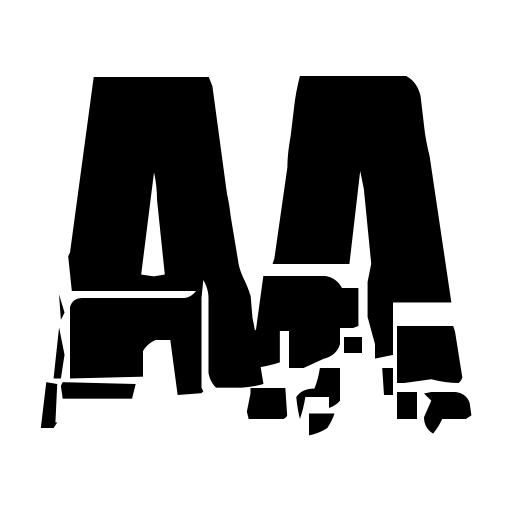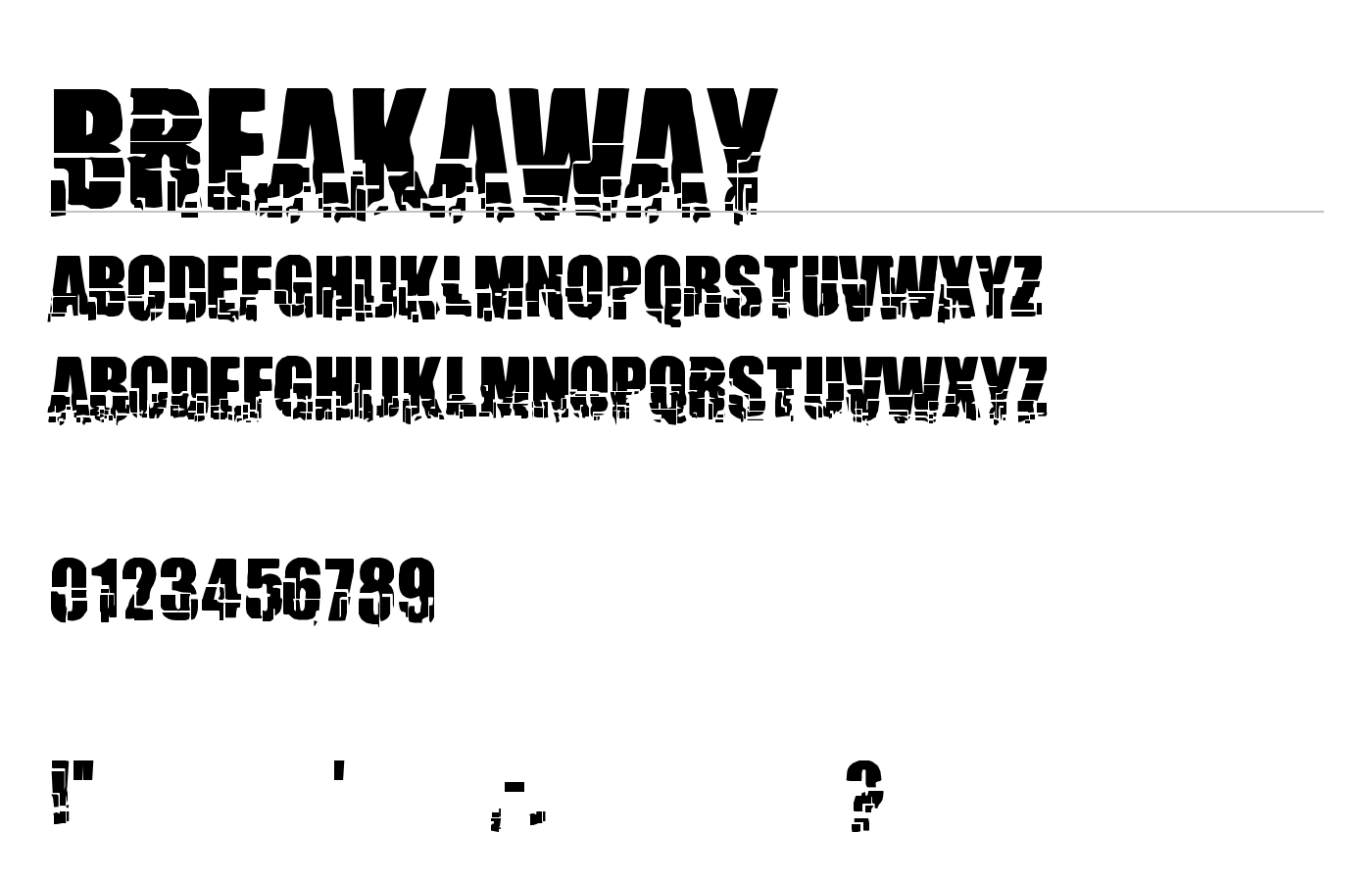
Breakaway Font is a bold, condensed sans serif with a striking glitch effect that makes the lower portions of the letters appear shattered or fragmented. Its heavy weight and strong presence convey a modern, edgy vibe perfect for headlines, posters, and branding that seeks a rebellious, tech-inspired aesthetic. Ideal for creative projects aiming to capture attention with a dynamic, contemporary look.
Breakaway Font